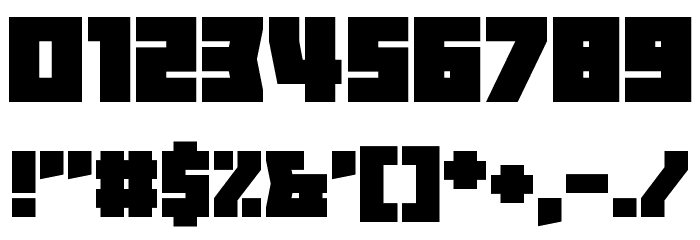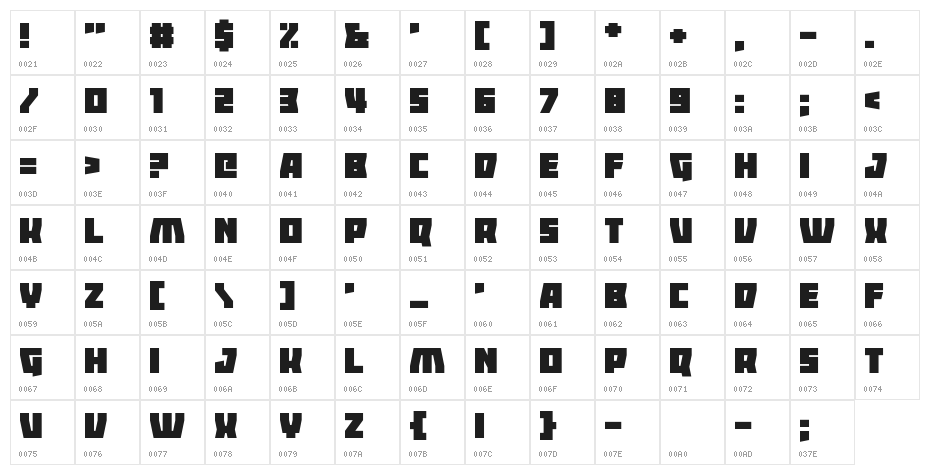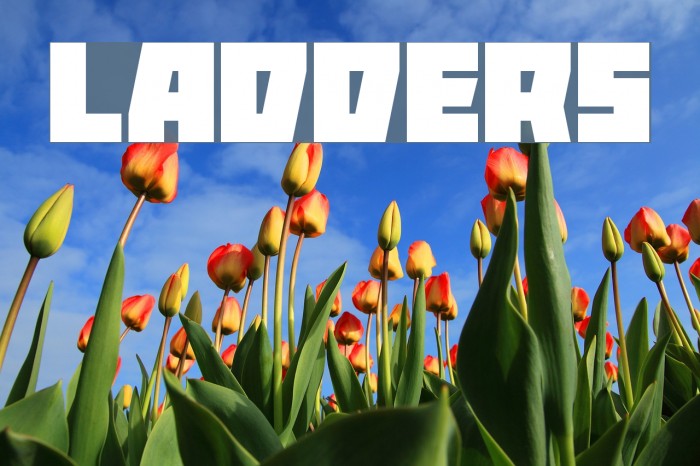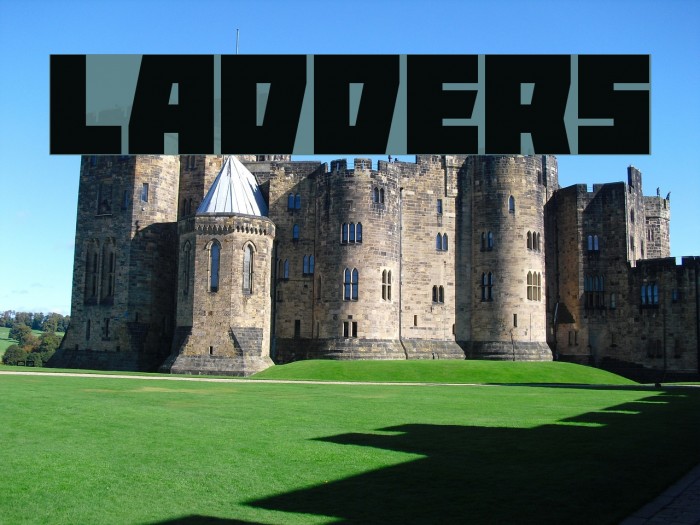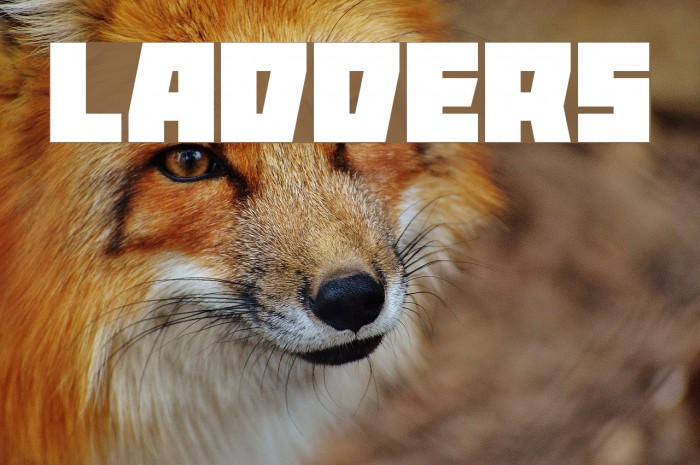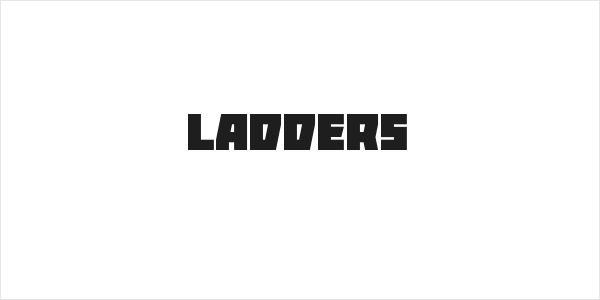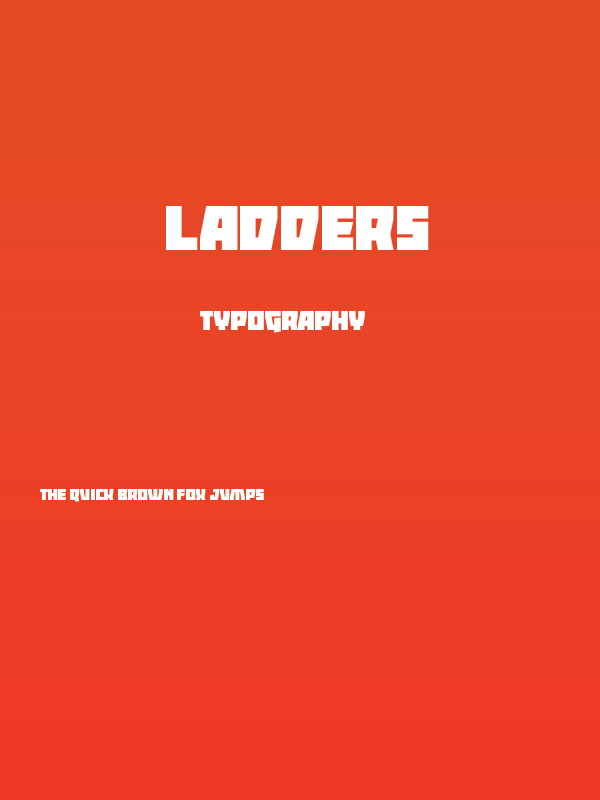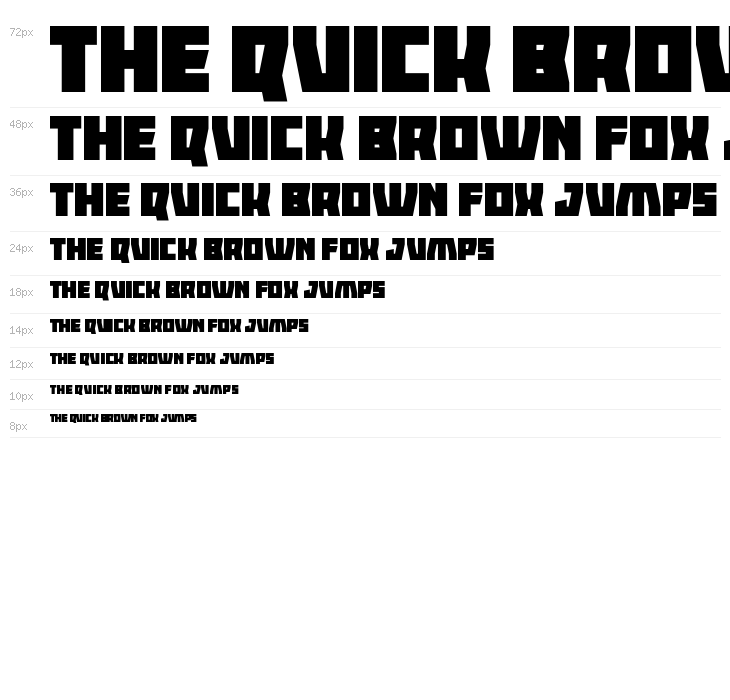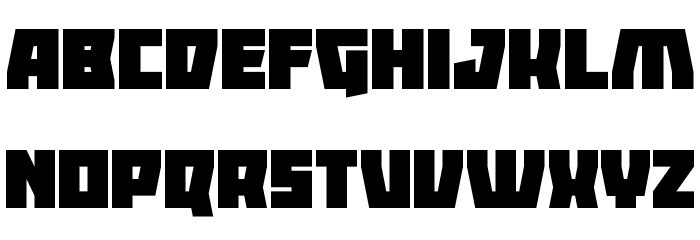
Ladders Font
Ladders Description
This font features a bold and geometric design with a strong presence. The characters are constructed with sharp angles and thick lines, giving it a blocky and robust appearance. The uppercase and lowercase letters maintain a consistent style, with each character having a unique angular cut that adds to the overall edgy look. The numerals and special characters follow the same design principles, ensuring uniformity across the font. Its distinct style makes it suitable for attention-grabbing headlines and impactful designs.
| Proposed Projects | Ideal for posters, logos, video game graphics, and any project requiring a bold, modern aesthetic. |